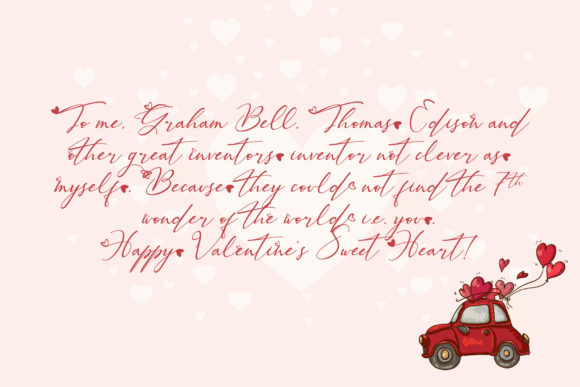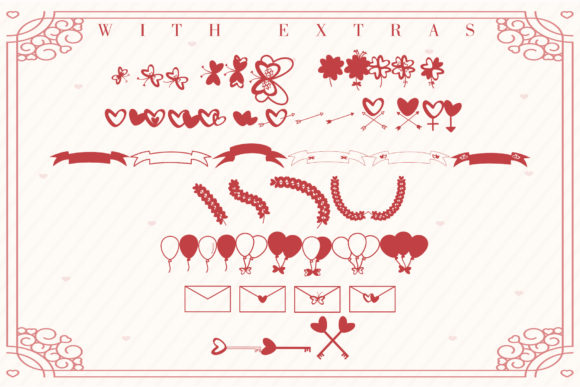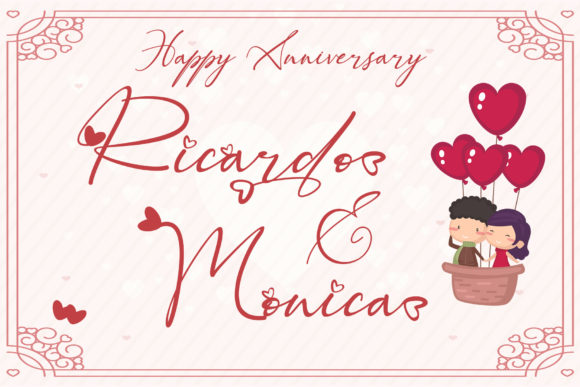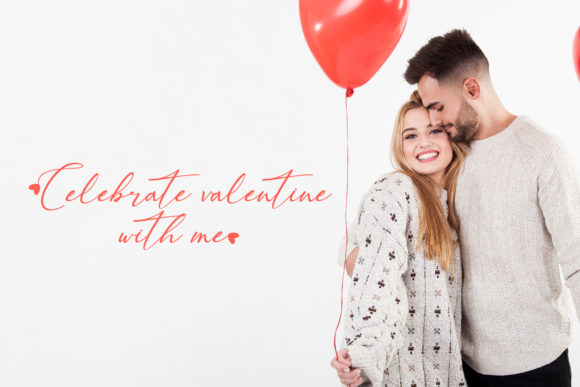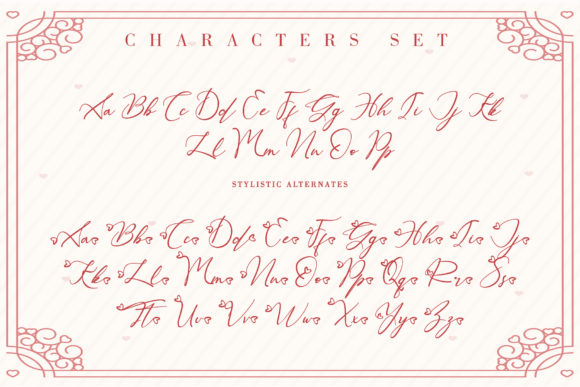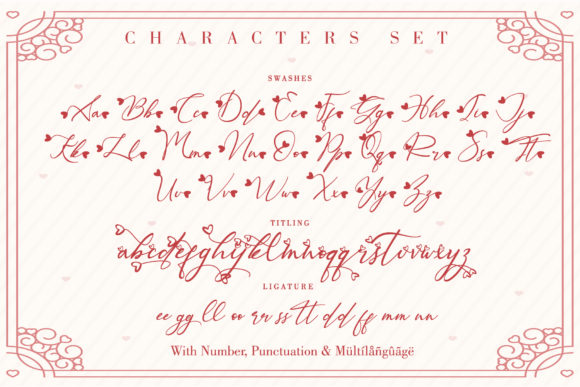
The Perfect Font to Express Your Love
Do you remember the moment when you found the perfect font to convey your emotions? Maybe it was a beautiful handwritten script that captured the essence of your love letter, or a elegant serif that added a touch of sophistication to your wedding invitation. For designers and creatives, finding the right font can be a game-changer. And if you’re looking for a font that embodies the beauty of love, you’re in luck.
Introducing the Beautiful Kisses Font, a stunning script designed to express your love in the most elegant way possible. With its flowing lines and delicate curves, this font is perfect for creating romantic and whimsical designs. Whether you’re a professional designer or a hobbyist, the Beautiful Kisses Font is a valuable addition to your toolkit, offering endless possibilities for creative expression.
Beautiful Kisses Font Key Features
- Font Style: A modern, elegant script font designed to convey a sense of romance and sophistication.
- Unique Characteristics: Features connected letterforms, subtle flair, and a flowing feel, making it perfect for adding a touch of whimsy and personality to designs.
Designer Review: Beautiful Kisses Font
Overall, I think the Beautiful Kisses Font is a lovely addition to any design project. Here’s what works well:
- ✨ Elegant and romantic feel: This font perfectly captures the essence of romance and sophistication.
- ✨ Versatile: Whether you’re designing a wedding invitation, a Valentine’s Day card, or a romantic novel cover, Beautiful Kisses Font is sure to impress.
- ✨ High-quality glyphs: The font’s high-resolution glyphs ensure that the text looks crisp and clear, even at larger sizes.
- ⚠️ Limited font weights: While the font comes in a range of styles, the weight options are somewhat limited, which may make it difficult to achieve a specific look or feel.
- ⚠️ Not suitable for body text: Due to its ornate nature, Beautiful Kisses Font is best suited for headings, titles, and other display text.
Overall, I think the Beautiful Kisses Font is a great choice for designers who want to add a touch of romance and elegance to their projects. Just be mindful of its limitations and use it wisely.
Beautiful Kisses Font: A Practical Application Guide
Tips for Getting the Most Out of the Beautiful Kisses Font
1. Use the font in conjunction with other elegant and cursive fonts to create a romantic look.
2. Experiment with different font sizes and colors to add depth and visual interest to your design.
3. Use the font for titles, headings, and body text to create a consistent look throughout your design.
2. Romance-themed posters and prints.
3. Valentine’s Day and anniversary cards.
Alternatives to Beautiful Kisses Font
Great Vibes Font is a modern, elegant script font ideal for use in invitations, quotes, and any design that requires a touch of sophistication. It features a flowing, cursive style that is reminiscent of handwritten letters. Great Vibes Font is a more elegant and refined alternative to Beautiful Kisses Font.
Carolyna Pro Font is a beautiful, handwritten script font that is perfect for use in wedding invitations, branding, and other design projects where a touch of romance is needed. It features a unique, flowing style that is similar to Beautiful Kisses Font, but with a more refined and polished look.
Pacifico Font is a beautiful, modern script font that is ideal for use in branding, packaging, and other design projects where a touch of elegance is needed. It features a flowing, cursive style that is similar to Beautiful Kisses Font, but with a more relaxed and casual feel.